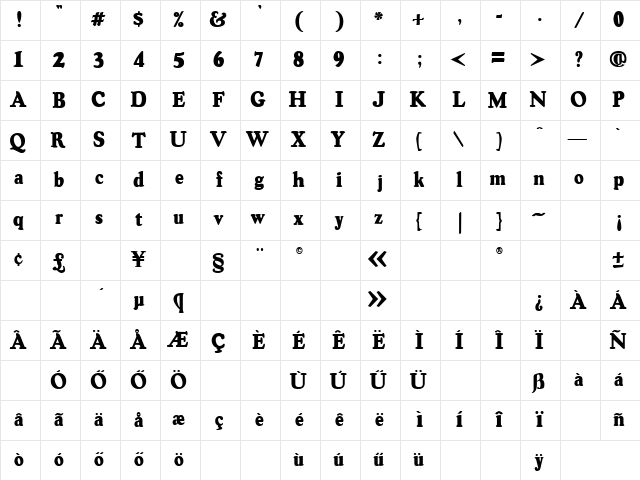
H_ASSAS3 Regular
Design Context for H_ASSAS3
H_ASSAS3 is a composed and adaptable typeface that performs quietly and consistently across a wide range of design contexts.